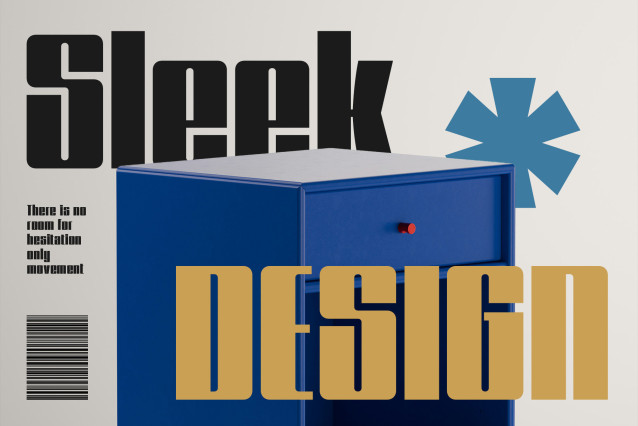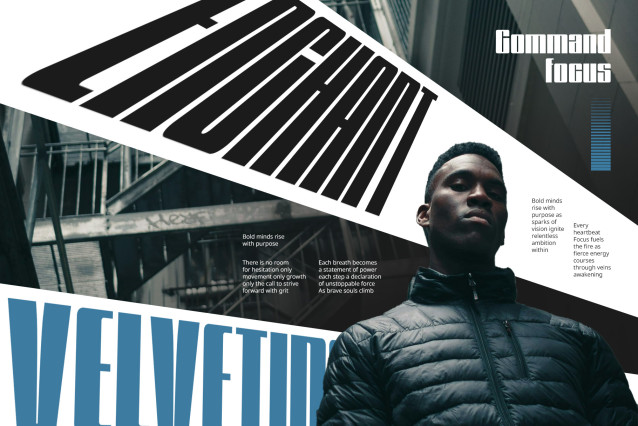
CS Rustle Font
CS Rustle – Condensed Font: Bold Form, Compact Precision
Rustle is a modern sans-serif font with a bold and clean-cut appearance. Its condensed structure reflects a refined contemporary style, balancing strength and simplicity to create a confident visual presence. The precise, geometric construction gives it a crisp and polished look.